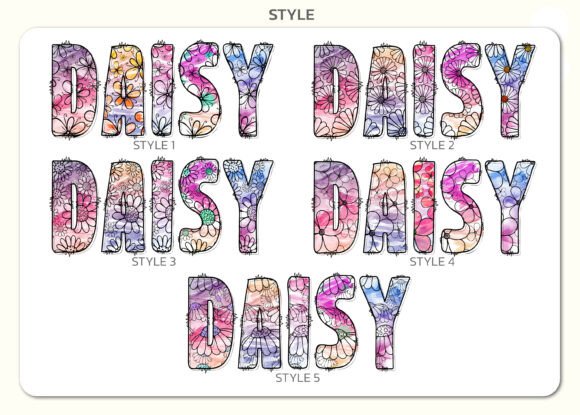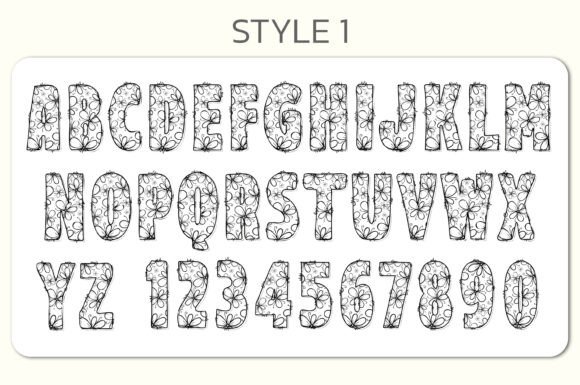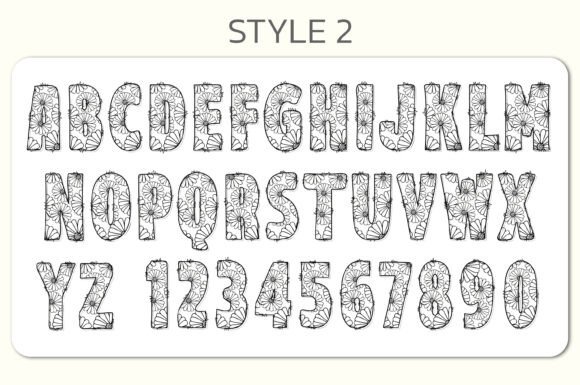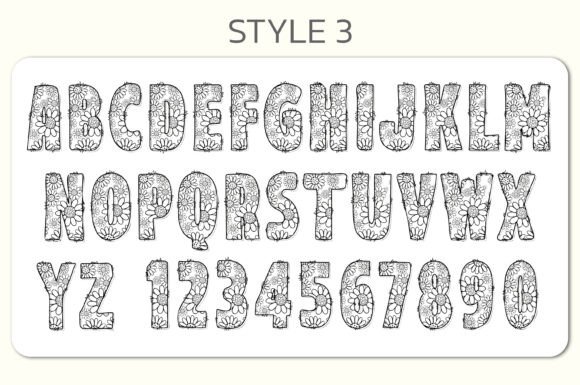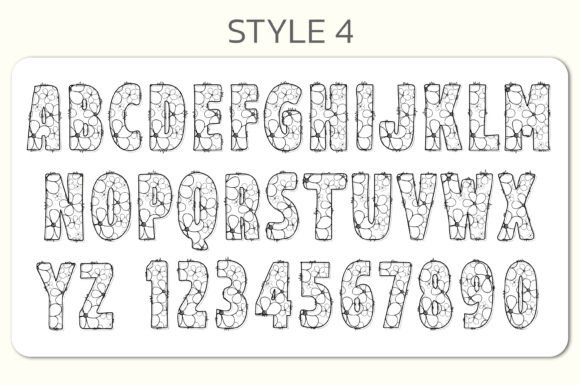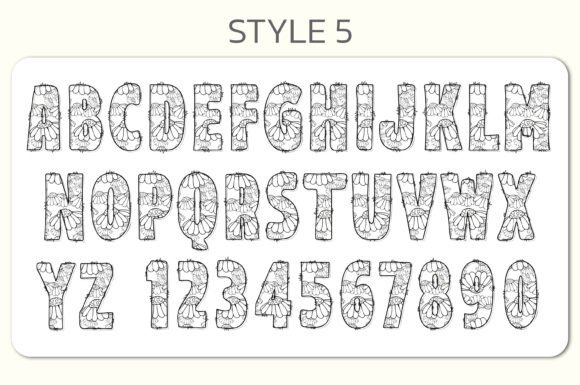
The Delightful Daisy Font: Adding a Touch of Whimsy to Your Designs
I still remember the time I was working on a project for a children’s birthday party invitation. I had all the design elements ready – the colors, illustrations, and layout – but something was missing. The font I was using just didn’t have the right feel to it. It was too serious, too formal. I needed something that would convey the playful and cheerful vibe of the party. That’s when I stumbled upon the Daisy font. ✨
It was love at first sight! The friendly, daisy-inspired design embodied the perfect amount of playfulness and whimsy that I was looking for. I knew right then and there that Daisy was going to be the star of the show. In this article, I’ll share with you my honest review of the Daisy font, how to use it on different platforms, and some similar fonts you might enjoy.
An Honest Review of Daisy Font
What I Love About Daisy Font
- ✨ Friendly and approachable design that’s perfect for projects that require a playful touch
- 🎉 Available in various weights, making it versatile for different design applications
- 🌼 Beautifully crafted with a unique, hand-drawn feel
While I absolutely adore the Daisy font, there are a few things to keep in mind: 🤔
- ⚠️ Some characters may not be suitable for body text, as they can be a bit ornate
- ⚠️ Limited availability of certain special characters or glyphs
The Backstory of Daisy Font
The Daisy font was designed with the intention of creating a friendly and approachable typeface that would bring a smile to people’s faces. Inspired by the simple, yet beautiful design of daisies, the font’s creator aimed to craft a font that would be perfect for projects that require a playful touch. 🌼
Q: What type of projects is the Daisy font best suited for?
A: The Daisy font is perfect for projects that require a playful and whimsical touch, such as children’s party invitations, greeting cards, and social media graphics.
Q: Is the Daisy font available in different weights?
A: Yes, the Daisy font comes in various weights, making it versatile for different design applications.